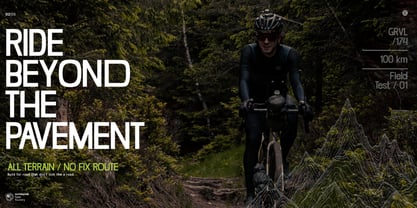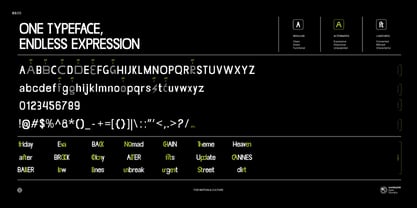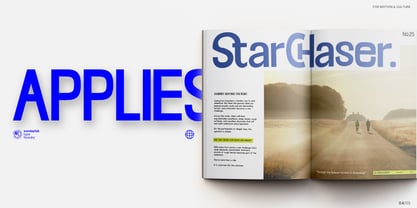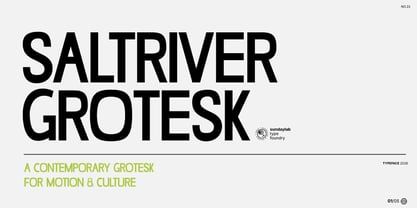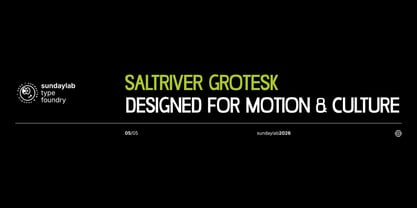
Saltriver Grotesk
by Sundaylab
The Saltriver Grotesk Font Family was designed by Adytia Purwo Wicaksono and published by Sundaylab. Saltriver Grotesk contains 1 styles. More about this family
A contemporary grotesk designed for motion & culture.
Saltriver Grotesk combines a clean, functional grotesk structure with distinctive alternate characters and ligatures, giving designers the flexibility to move from straightforward typography to more expressive visual compositions.
Its bold and condensed character makes it highly effective for headlines, posters, branding, editorial layouts, sports graphics, outdoor campaigns and contemporary visual identities.
The typeface is designed to work across a wide range of creative directions — from technical and industrial graphics to cycling, adventure, street culture, fashion and editorial design.
Designed for
• Branding & Visual Identity
• Sports & Cycling Graphics
• Outdoor & Adventure Projects
• Editorial & Magazine Design
• Posters & Campaigns
• Fashion & Streetwear
• Packaging & Merchandise
• Advertising & Social Media
• Headlines & Display Typography
• Creative Direction & Art Direction
Character
Clean. Direct. Functional.
Expressive. Distinctive. Unexpected.
through its alternate characters and ligatures.
Saltriver Grotesk is made for designers who need a typeface that can stay functional when required, while still bringing enough personality to become the visual voice of a project.
Features
• Uppercase Characters
• Lowercase Characters
• Numerals
• Punctuation
• Symbols
• Alternate Characters
• Ligatures
• OpenType Features
• Display Typography
• Editorial Friendly
• Branding Friendly
• Sport & Outdoor Applications
• Poster & Campaign Ready
Designers: Adytia Purwo Wicaksono
Foundry: Sundaylab